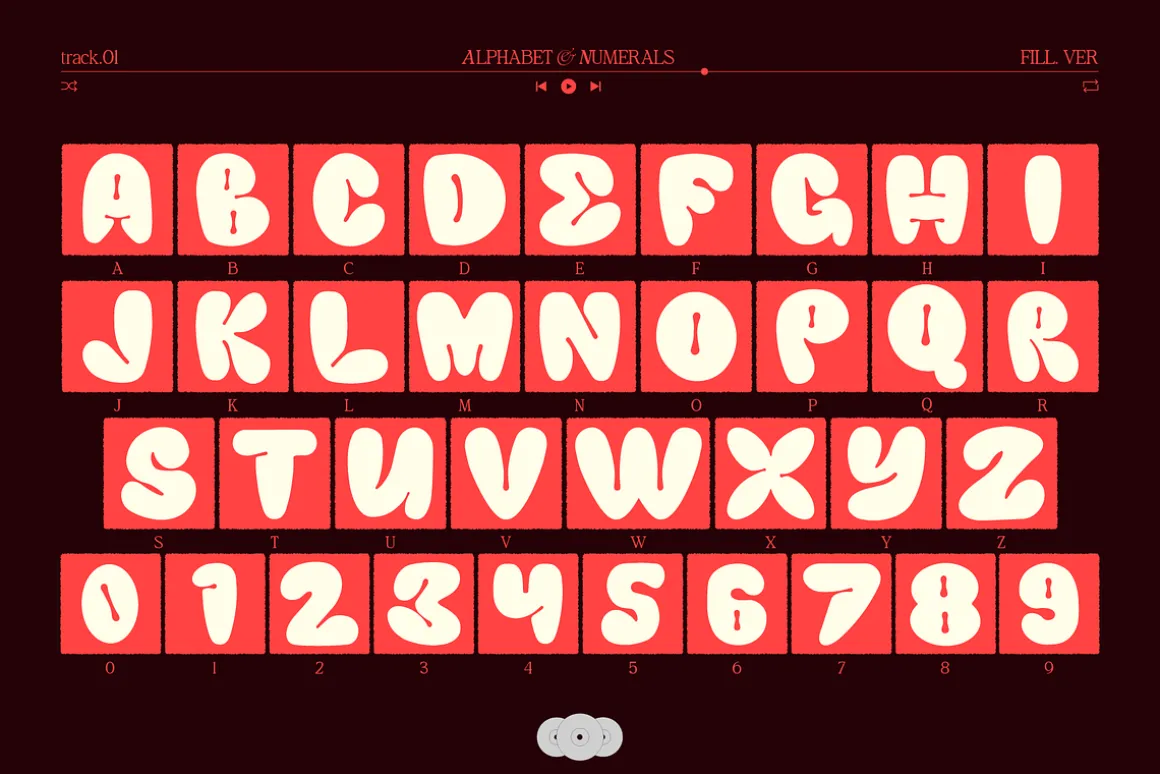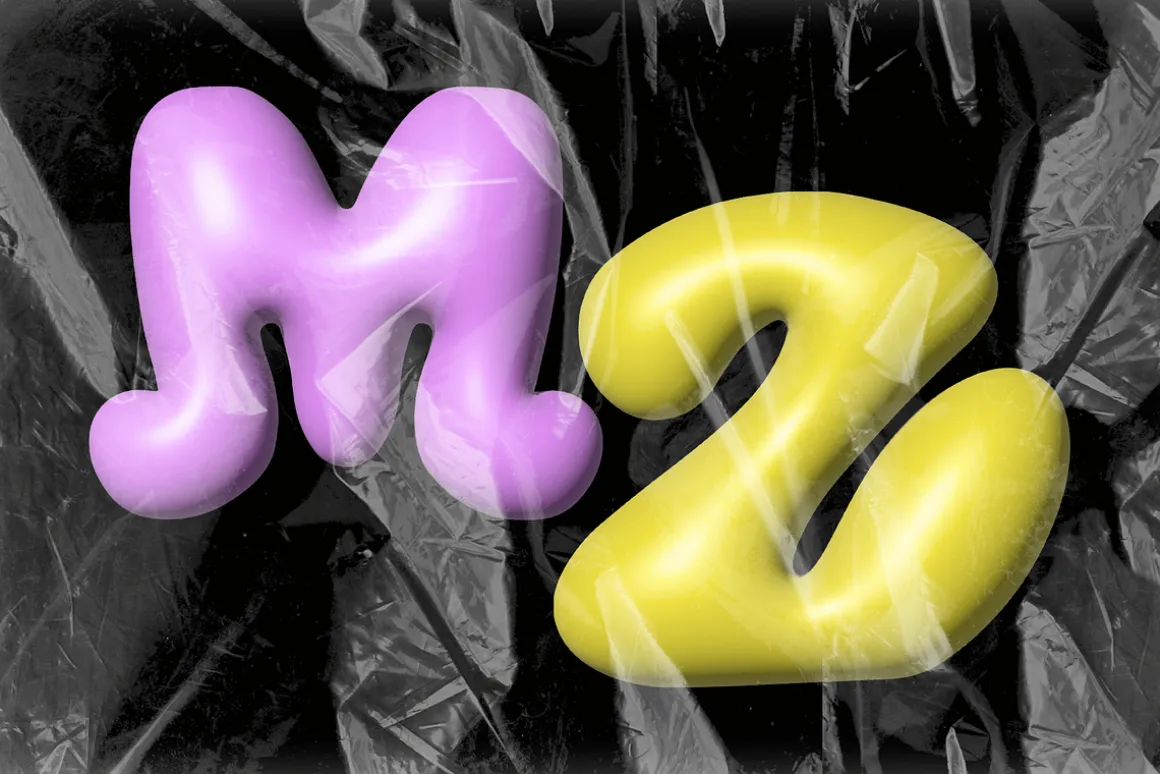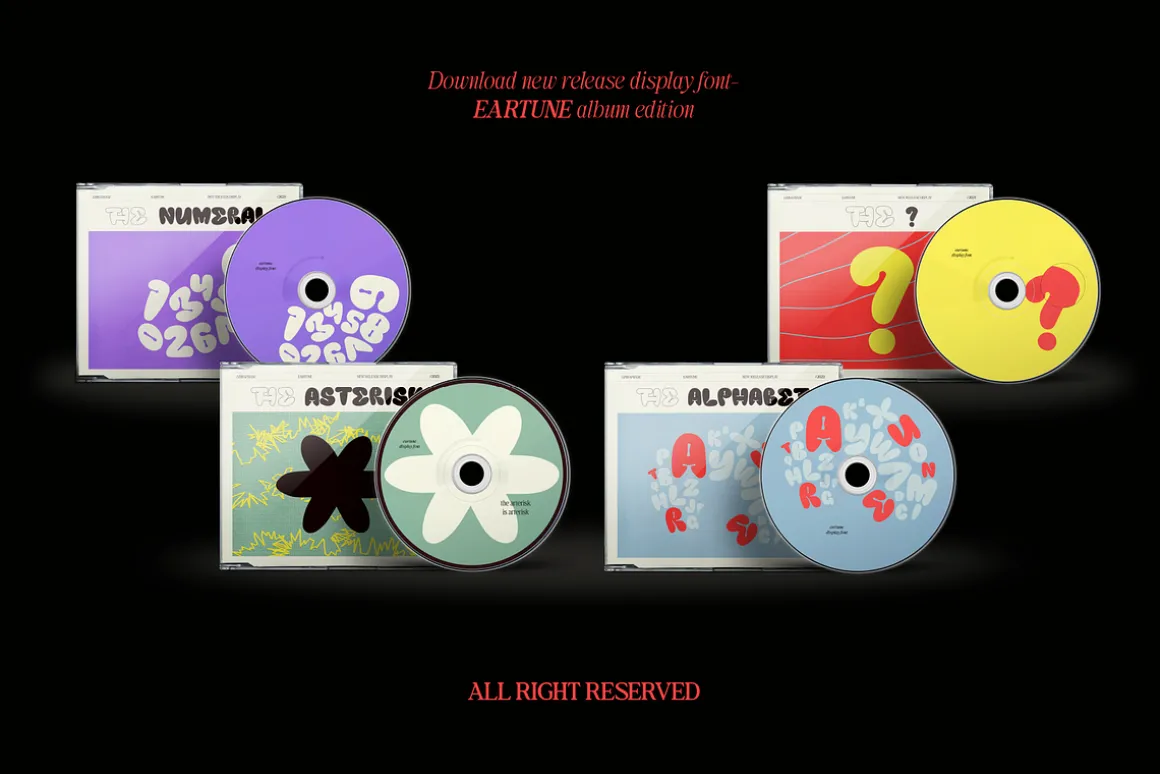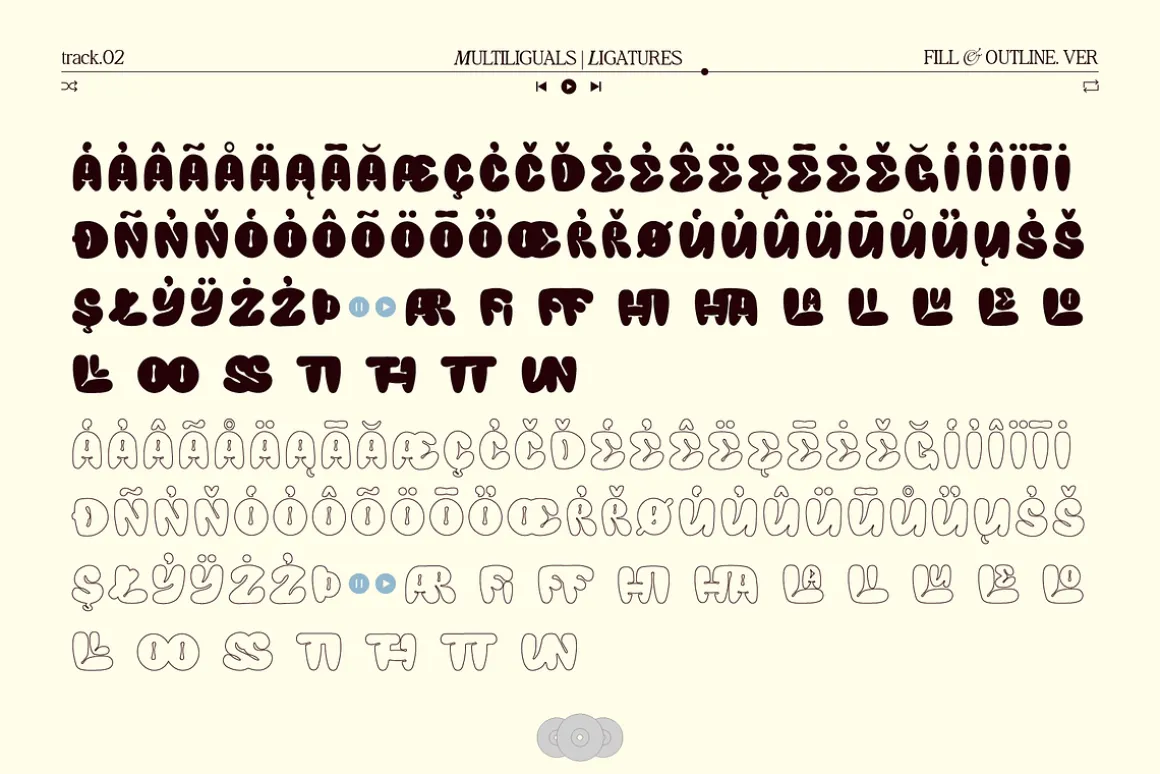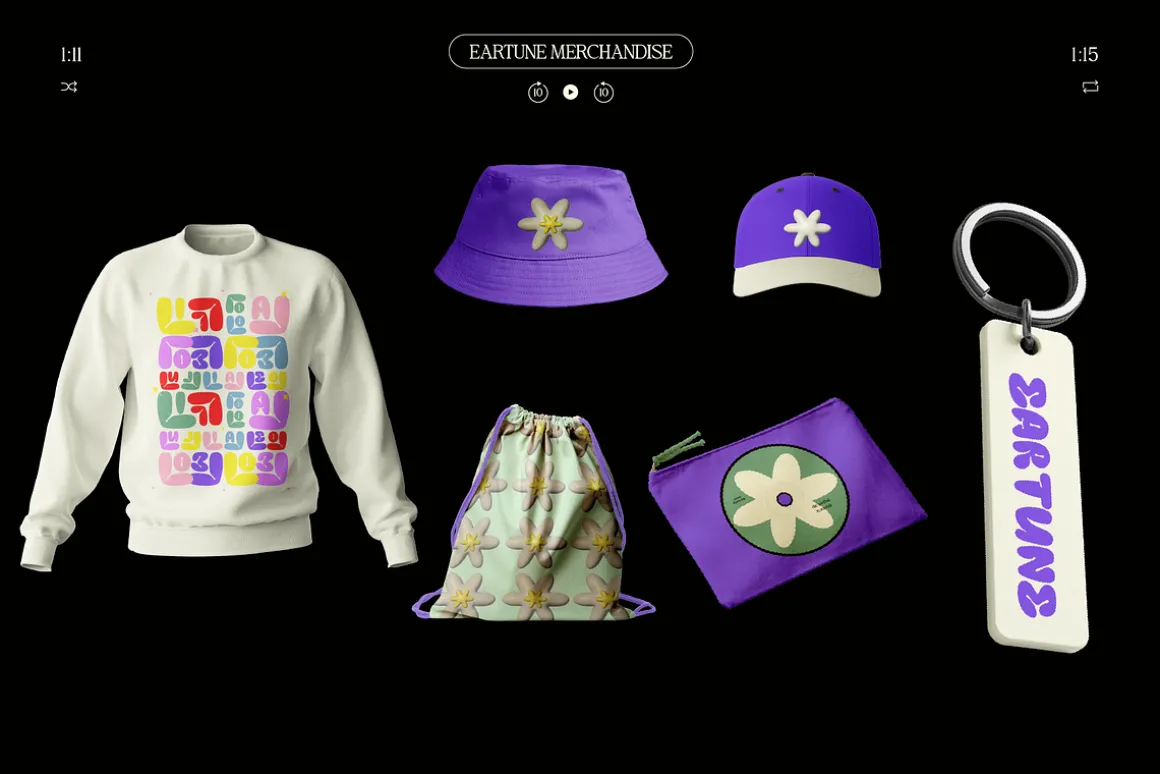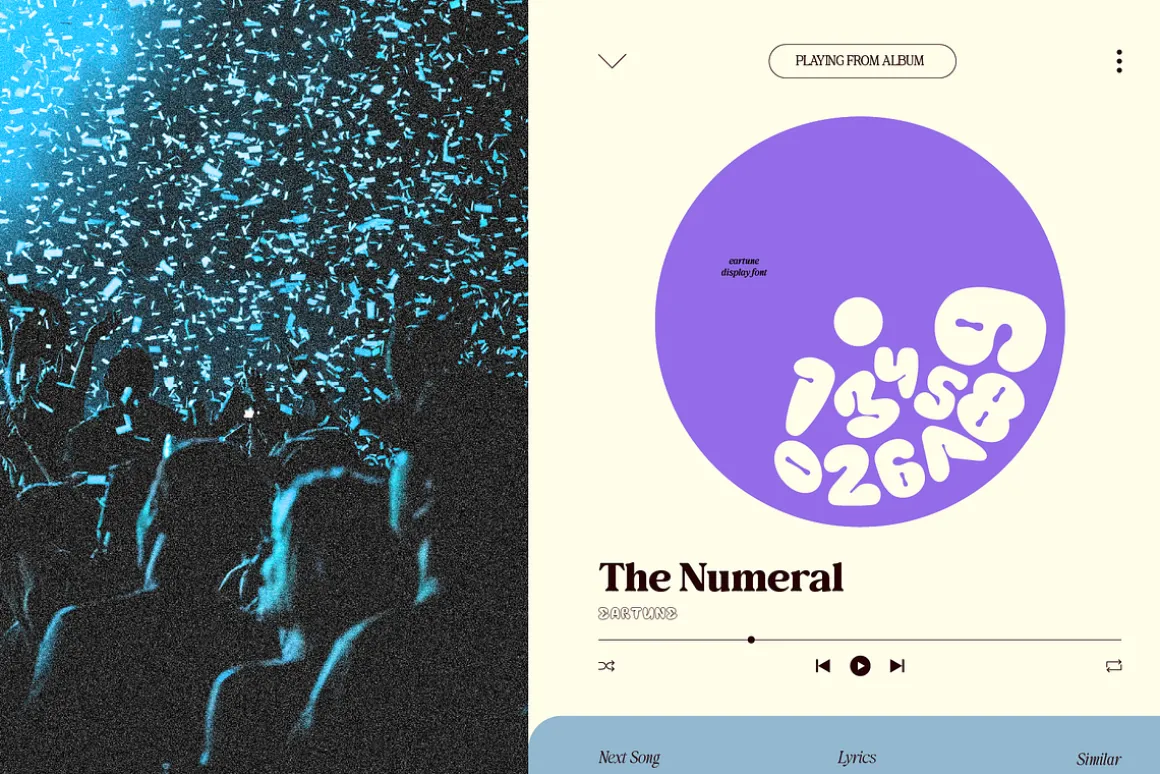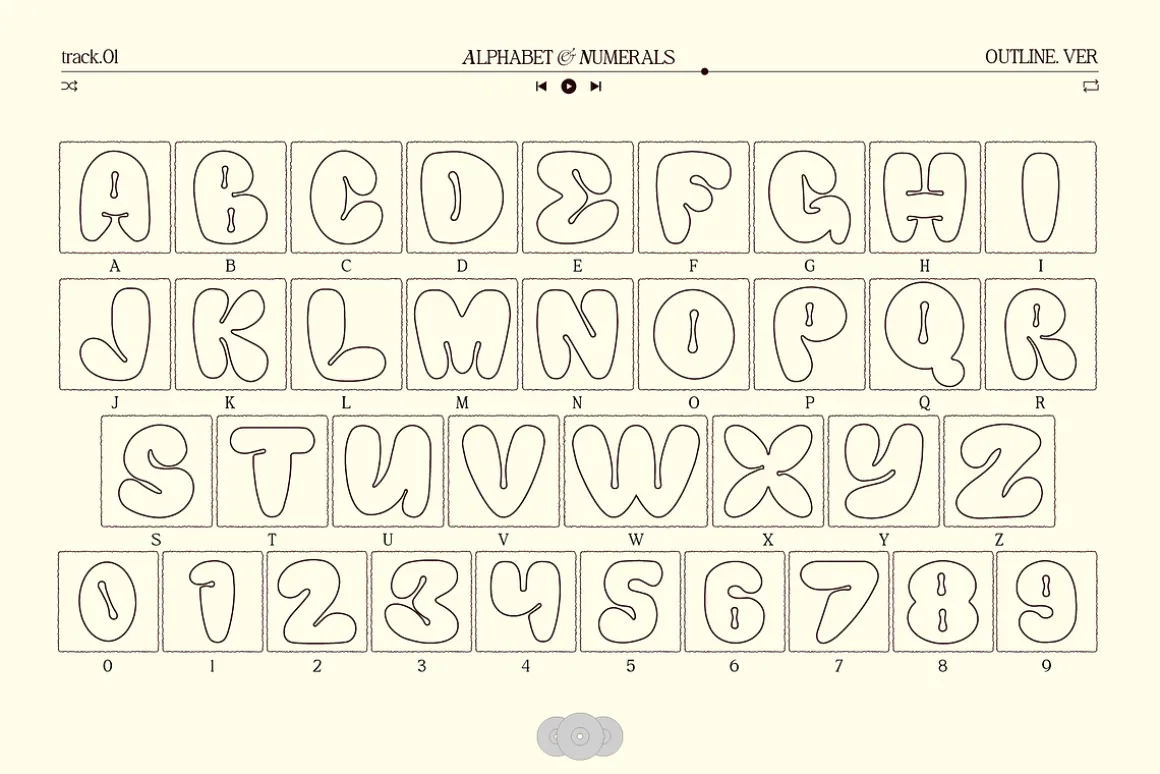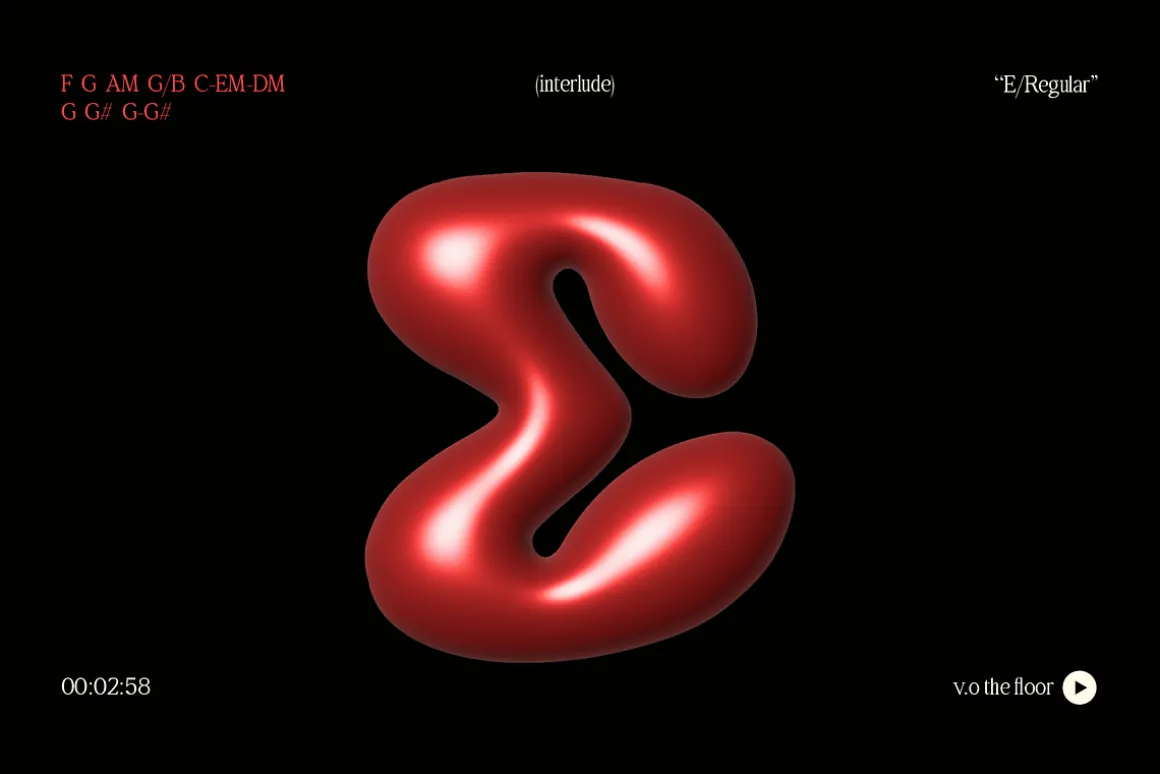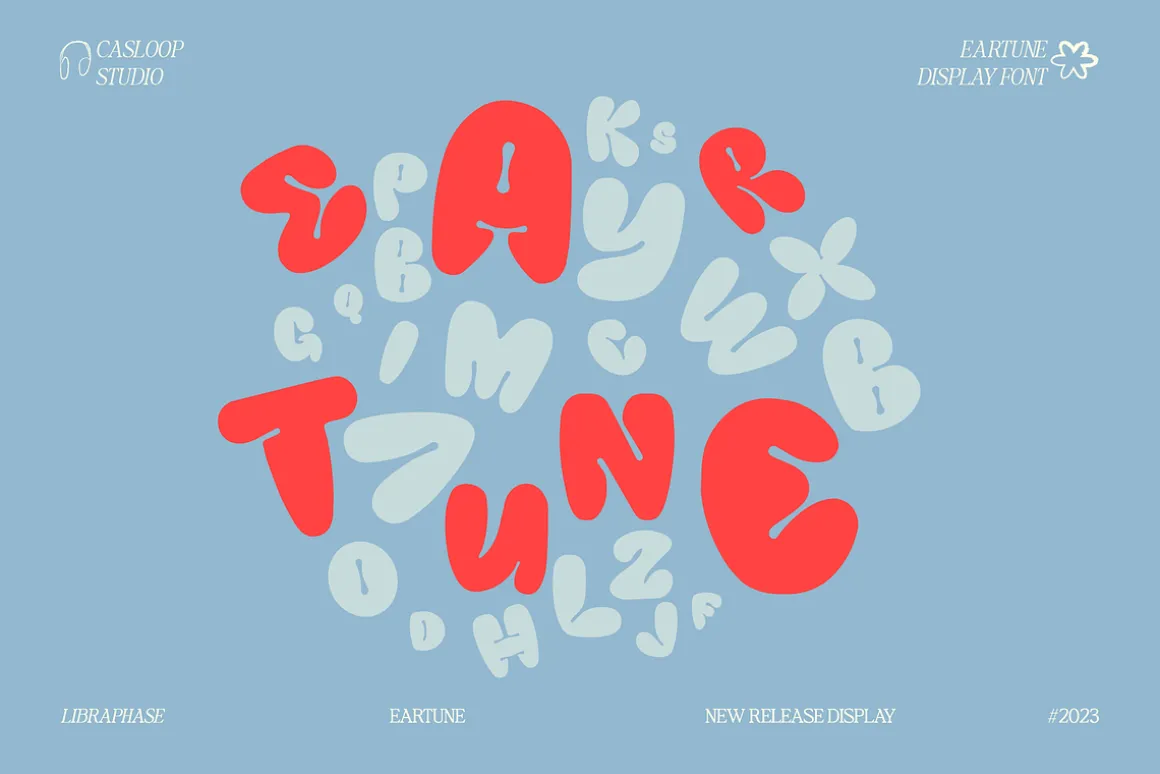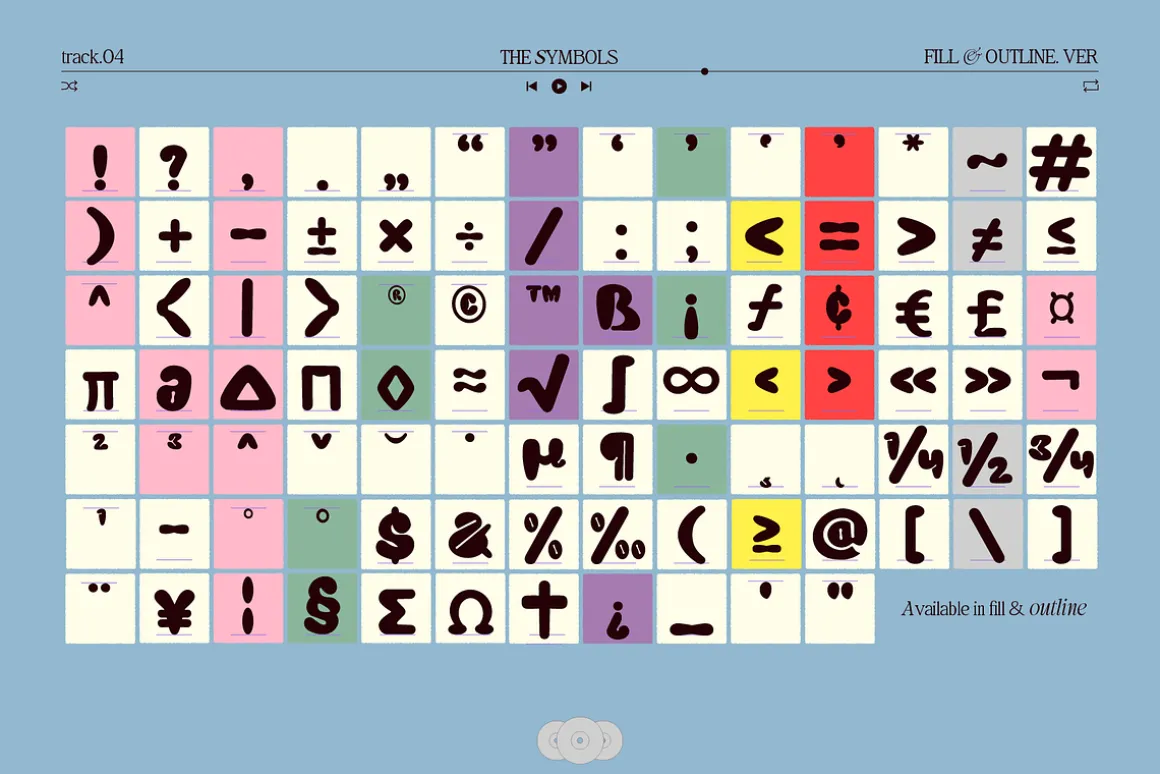
Introducing Eartune, a uniquely charming font that captures the delightful essence of rounded, chic, and cute elements, creating a playful bubbly style perfect for a variety of creative projects. This font goes beyond traditional letters; it’s a character-filled adventure waiting to unfold.
Eartune exudes an atmosphere of playfulness and joy, making it an ideal choice for projects aiming for a light-hearted and dynamic feel. Its rounded and bubbly nature adds a touch of whimsy to your designs, ensuring they stand out with a dynamic and impactful presence.
Experience the versatility of Eartune as it seamlessly integrates into a range of creative endeavors. Whether you’re working on website design, packaging, logos, branding, or exploring innovative projects like album covers, 3D designs, logotypes, band merchandise, music posters, or fashion, Eartune is your superior choice.
Eartune delivers more than just a font; it provides an expressive and fun experience. With features like cuteness, humor, and dynamism, this font allows you to create designs that resonate with love and fantasy. Its impact goes beyond the ordinary, leaving a lasting impression on your audience.
Infuse your projects with the delightful and playful vibe of Eartune. Capture a cute and dynamic atmosphere that brings a sense of joy to your designs. This font is not just a tool; it’s a mood-setter that radiates warmth and creativity.
- Uppercase & lowercase
- Numbers and punctuation
- Ligatures & Alternates
- Multilingual